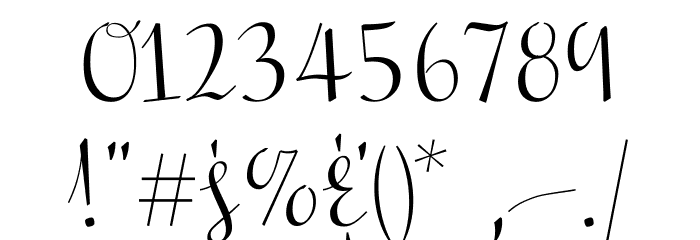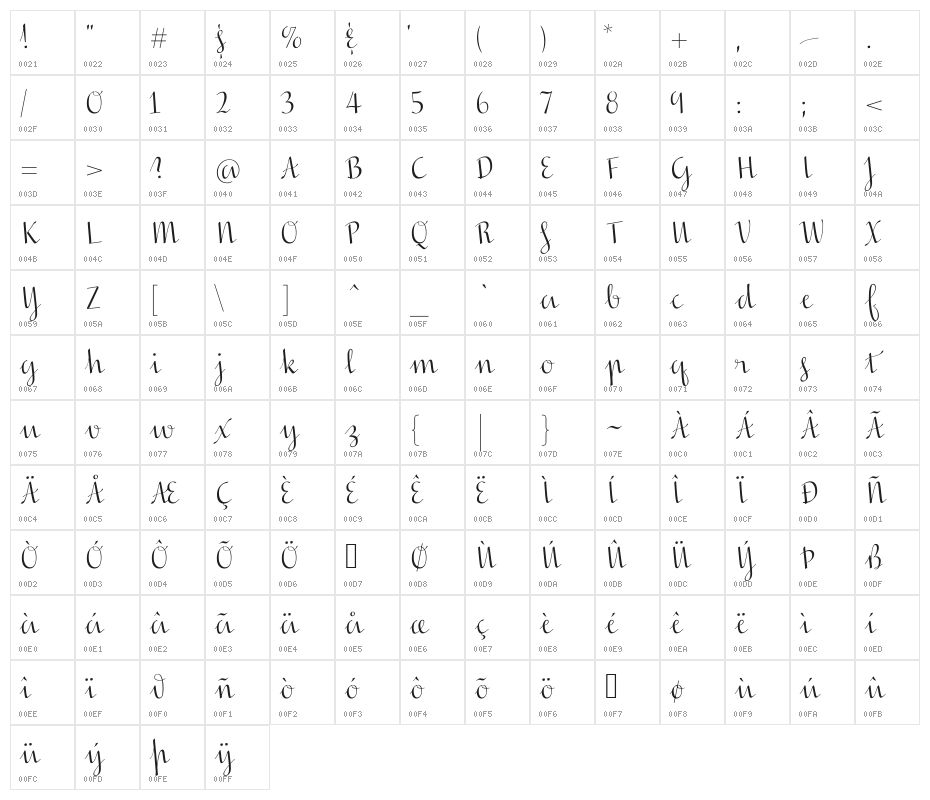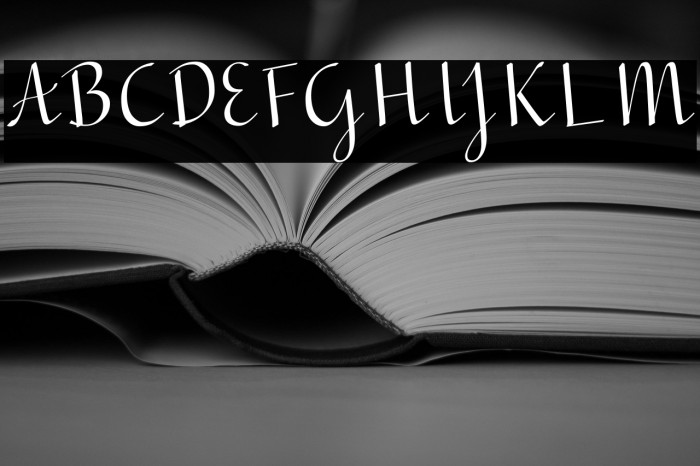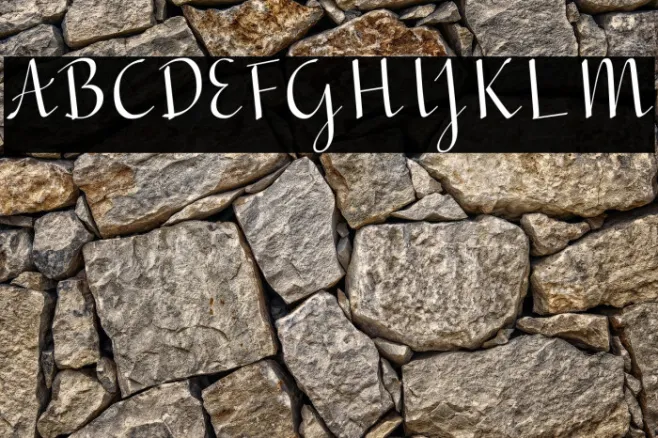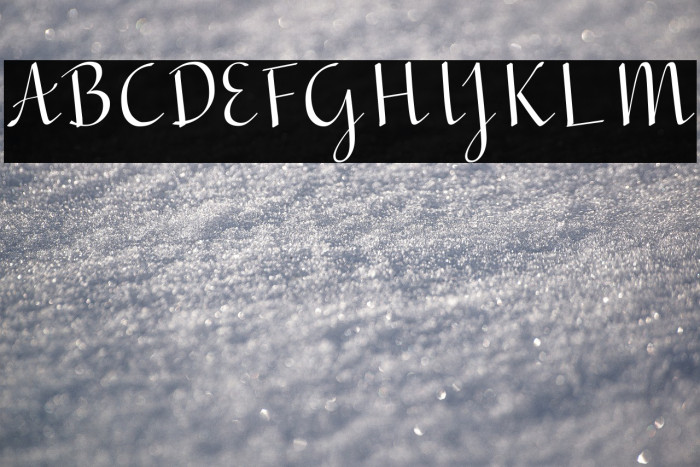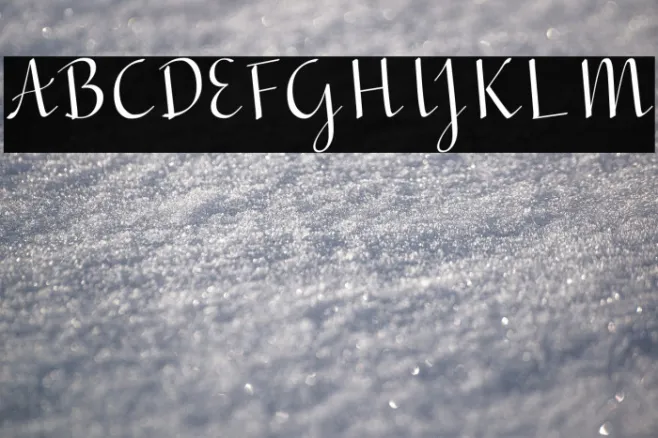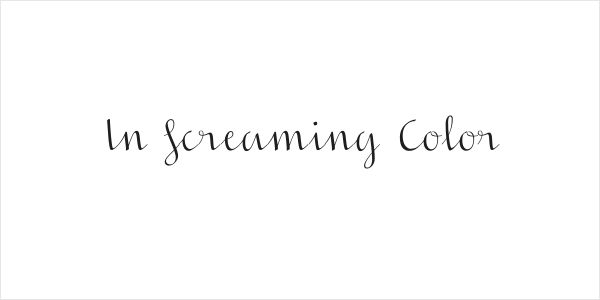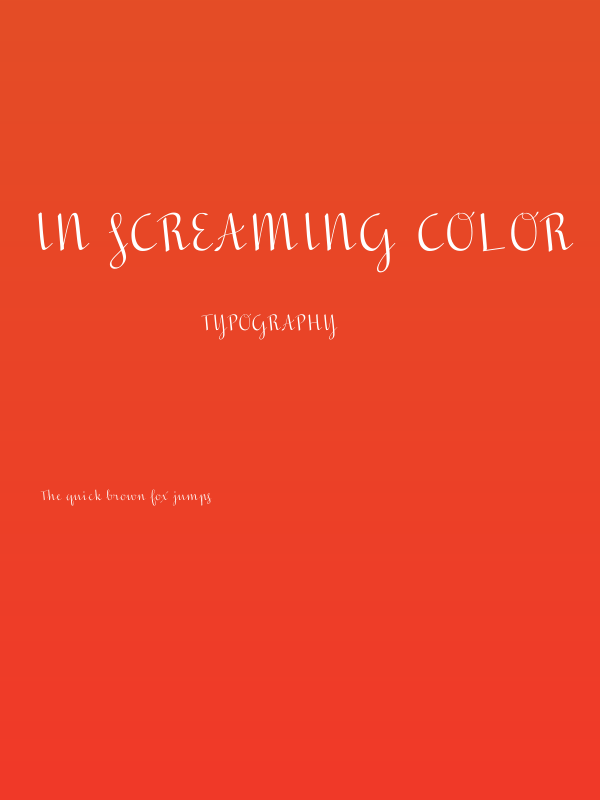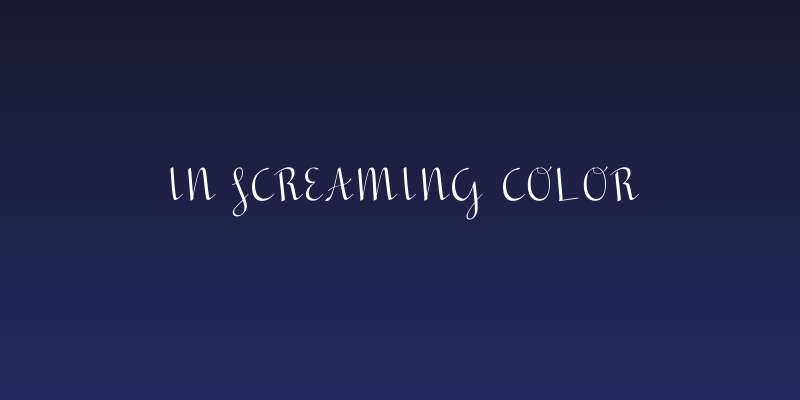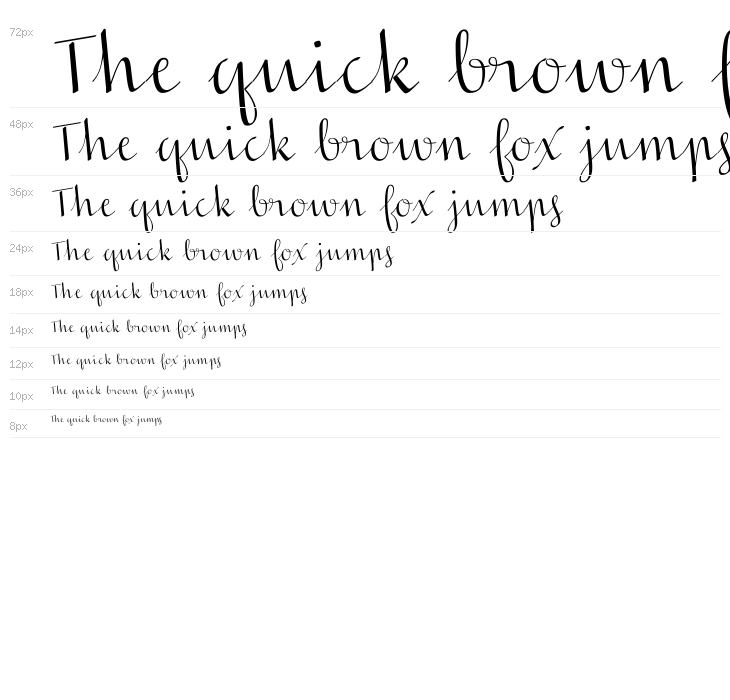
In Screaming Color Font
In Screaming Color Description
This font features a dynamic and expressive handwritten style, characterized by its fluid strokes and varying line thicknesses. The letters exhibit a playful yet elegant appearance, with a slight slant that adds to its casual charm. The uppercase letters are bold and prominent, while the lowercase letters maintain a consistent flow, enhancing readability. The numerals are distinct and align well with the overall aesthetic, making them suitable for various design contexts. Special characters are thoughtfully integrated, maintaining the font's cohesive look. This font's unique personality makes it ideal for creative projects that require a touch of individuality and flair.
| Use Case | Logos, Invitations, Creative projects |
| Proposed Projects | Ideal for wedding invitations, greeting cards, personal branding, and creative posters. |